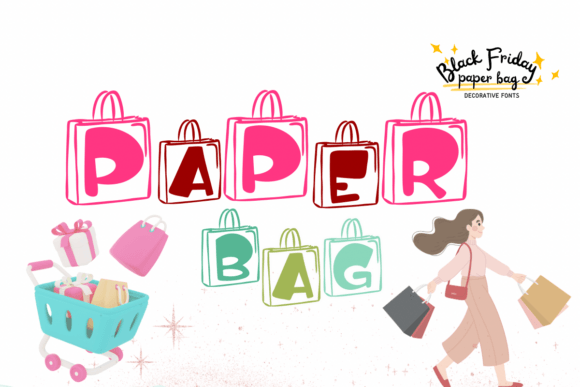
Black Friday Paper Bag Font: Add a Pop of Fun to Your Holiday Shopping
As the holiday shopping season approaches, retailers and marketers are on the lookout for creative ways to promote their Black Friday sales. One eye-catching design element that’s perfect for the occasion is the Black Friday Paper Bag Font. This fun, decorative font features letters that look like they’re printed on colorful paper bags, adding a cheerful touch to any marketing material.
The Story Behind the Black Friday Paper Bag Font
The Black Friday Paper Bag Font is a unique and festive typeface that’s inspired by the colorful paper bags often used for shopping. The font’s playful design is meant to evoke the excitement and joy of shopping during the holiday season. With its bold, colorful letters, this font is sure to grab attention and put a smile on customers’ faces.
Key Features of the Black Friday Paper Bag Font
- Fun and playful design: The Black Friday Paper Bag Font features a fun, hand-drawn design that looks like letters printed on colorful paper bags.
- Colorful and bold: The font’s bold, colorful letters are sure to grab attention and add a pop of fun to any marketing material.
- Perfect for Black Friday sales: The font’s holiday theme makes it perfect for promoting Black Friday sales and other holiday shopping events.
How to Use the Black Friday Paper Bag Font
The Black Friday Paper Bag Font is a versatile design element that can be used in a variety of marketing materials, including:
- Social media graphics: Use the font to create eye-catching social media graphics that promote your Black Friday sales.
- Email marketing campaigns: Add a touch of fun to your email marketing campaigns with the Black Friday Paper Bag Font.
- In-store signage: Use the font to create colorful in-store signage that grabs customers’ attention.
- Online ads: The font is perfect for online ads, including Google Ads and social media ads.
Benefits of Using the Black Friday Paper Bag Font
Using the Black Friday Paper Bag Font in your marketing materials offers a range of benefits, including:
- Increased brand visibility: The font’s bold, colorful design is sure to grab attention and increase brand visibility.
- Improved customer engagement: The font’s playful design can help improve customer engagement and put a smile on customers’ faces.
- Enhanced holiday shopping experience: The font can help create a festive and fun holiday shopping experience that drives sales and customer loyalty.
Tips for Using the Black Friday Paper Bag Font
Here are a few tips for using the Black Friday Paper Bag Font effectively:
- Use it sparingly: Use the font sparingly to avoid overwhelming your audience.
- Pair it with other design elements: Pair the font with other design elements, such as images and graphics, to create a cohesive look.
- Experiment with different colors: Experiment with different colors and font sizes to find the combination that works best for your brand.
The Black Friday Paper Bag Font is a fun and festive design element that’s perfect for promoting Black Friday sales and other holiday shopping events. With its bold, colorful letters and playful design, this font is sure to grab attention and put a smile on customers’ faces. By using this font in your marketing materials, you can create a festive and fun holiday shopping experience that drives sales and customer loyalty.